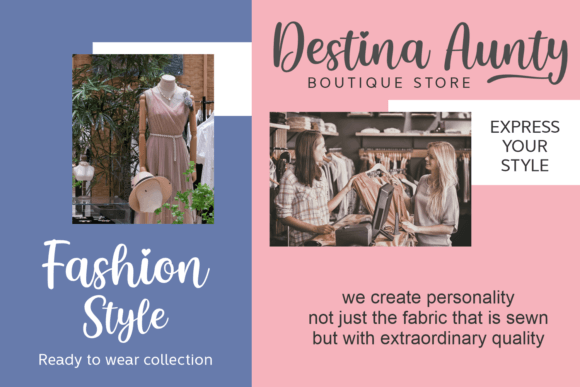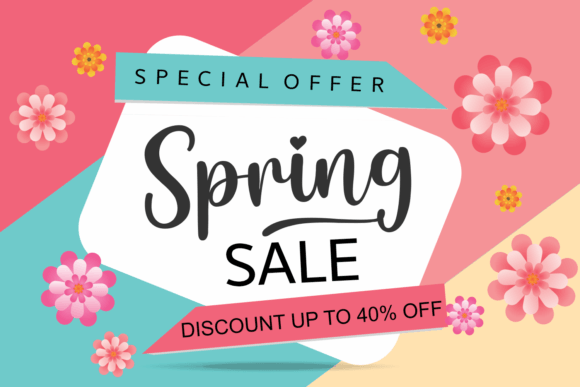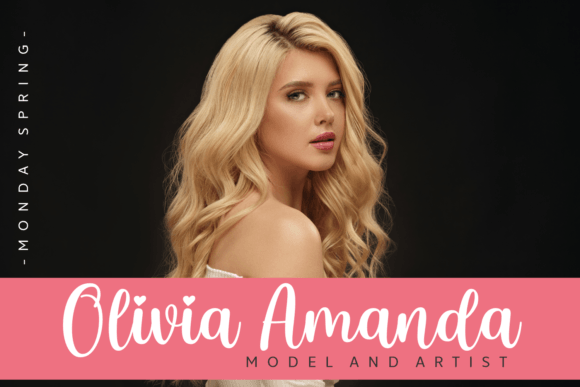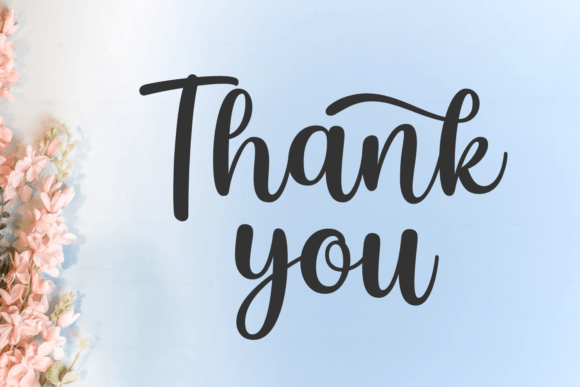
Introduction to Monday Spring Font
Do you ever find yourself stuck in a creative rut on a Monday morning? The day starts off slowly, and you’re struggling to get your ideas flowing? Well, we’ve got just the thing to help spark your imagination: the Monday Spring Font. This stunning script font is the perfect tool to kick-start your design project and bring a touch of sophistication to your creative endeavors.
As a valuable design resource, the Monday Spring Font offers a high-quality, elegant look that’s sure to impress. With its smooth curves and gentle strokes, this font is perfect for logos, branding, invitations, and more. Plus, it’s available for a free download, making it an accessible and versatile choice for designers looking to elevate their creative projects.
Whether you’re working on a personal or professional project, the Monday Spring Font is a must-have in your design arsenal. Its transparent background allows for seamless integration with any design, and its refined aesthetic is sure to leave a lasting impression.
Key Features of Monday Spring Font
- Designed with a modern and minimalist aesthetic, making it perfect for a variety of creative projects.
Honest Review: Monday Spring Font
As a designer, I’m always on the lookout for high-quality fonts to elevate my creative projects. The Monday Spring Font has caught my attention, and I’m excited to share my honest review.
- ✨ The Monday Spring Font has a lovely, hand-drawn feel that adds a touch of whimsy to any design.
- ✨ The font includes a transparent background, which makes it easy to customize and layer with other design elements.
However, I do have a few concerns:
- ⚠️ The font’s character set is limited, which may not be ideal for projects that require a wide range of characters.
- ⚠️ Some characters may not render properly in certain font sizes or styles, which can be frustrating for designers.
Overall, I think the Monday Spring Font is a great addition to any designer’s toolkit. While it has its limitations, its unique charm and versatility make it a valuable resource for creative projects. If you’re looking for a fun, hand-drawn font for your next design, the Monday Spring Font is definitely worth considering.
Monday Spring Font
The Monday Spring Font is perfect for a variety of creative projects, including graphic design, branding, and digital marketing. Its high-quality design and transparent background make it an ideal choice for designers looking to create engaging and professional designs.